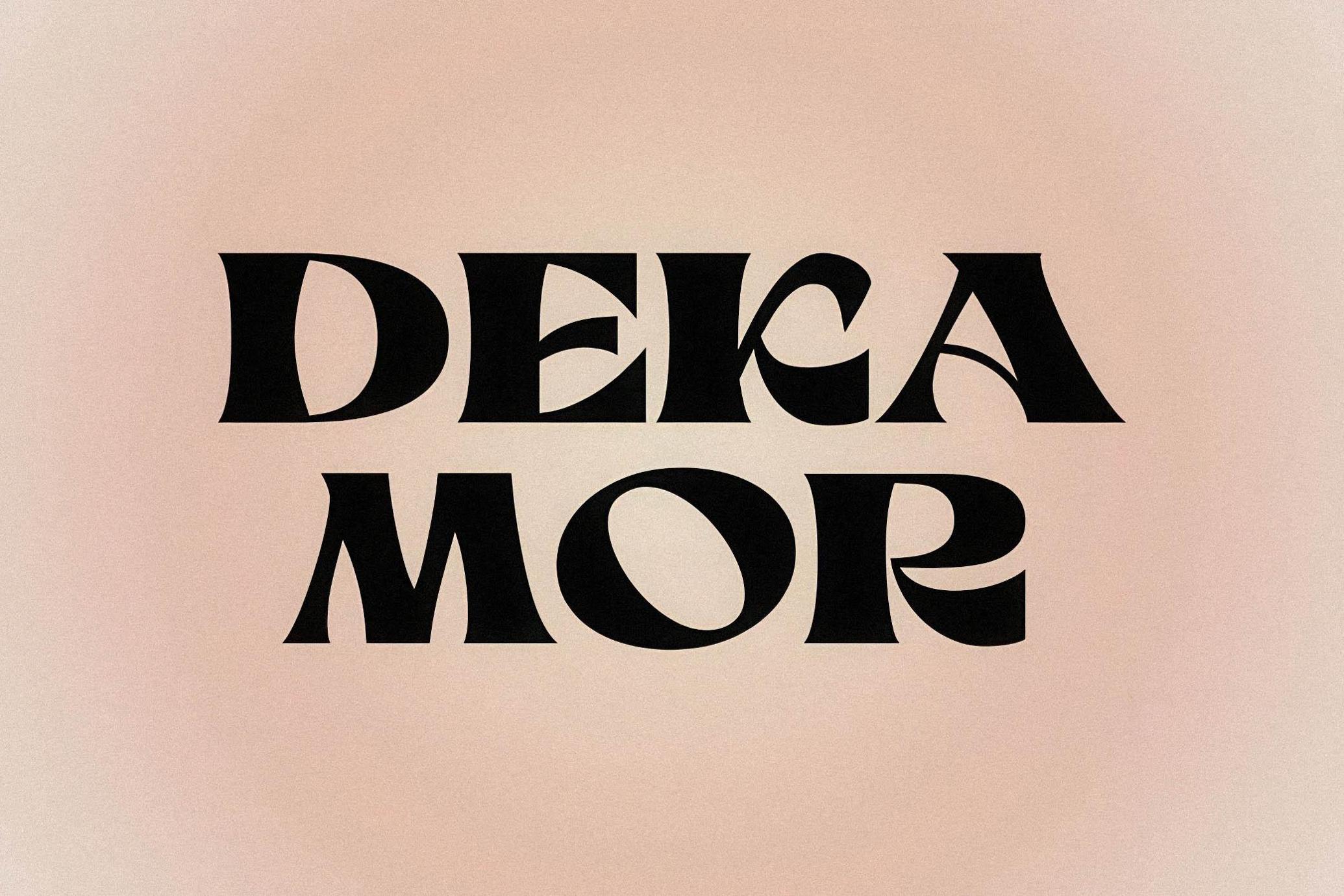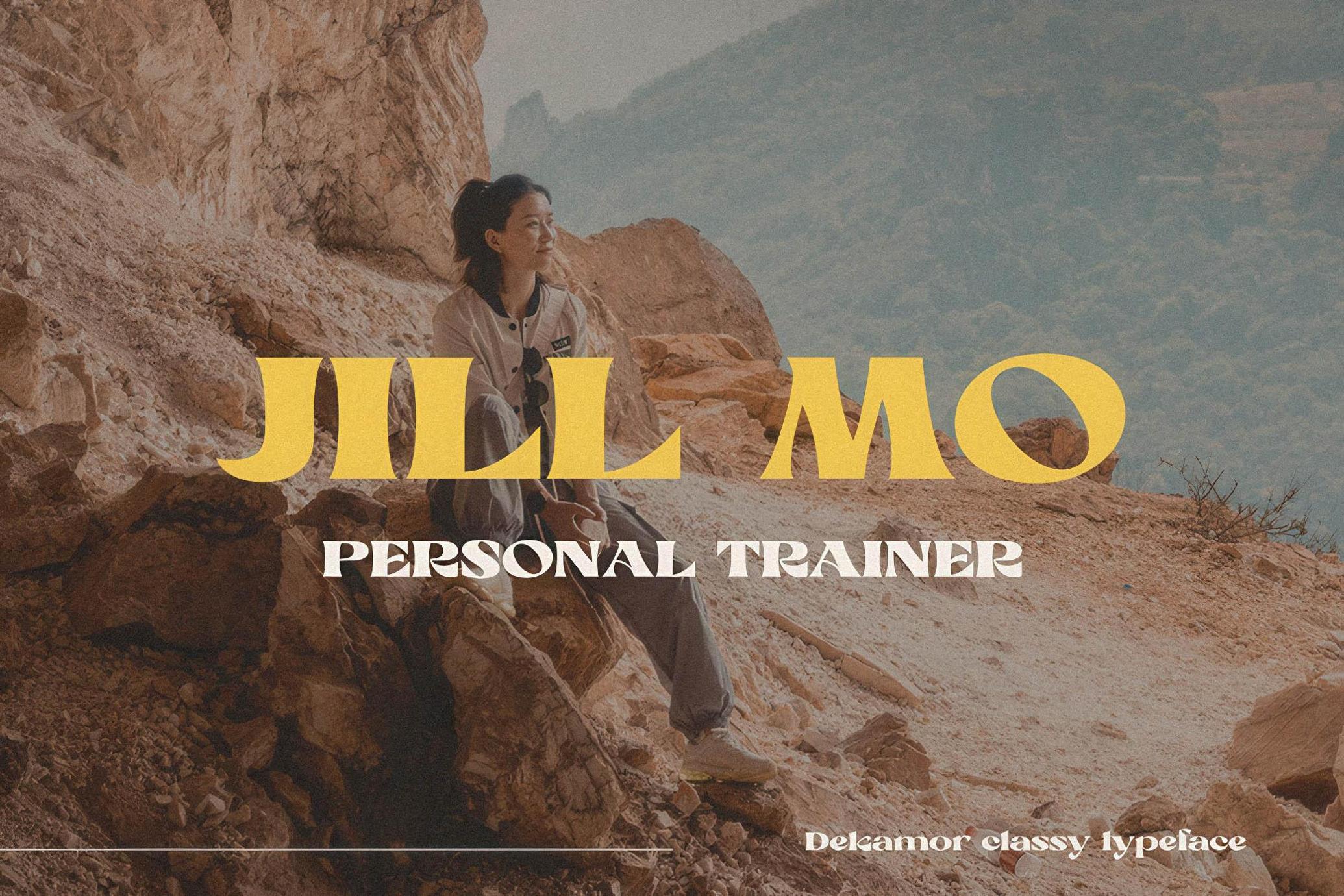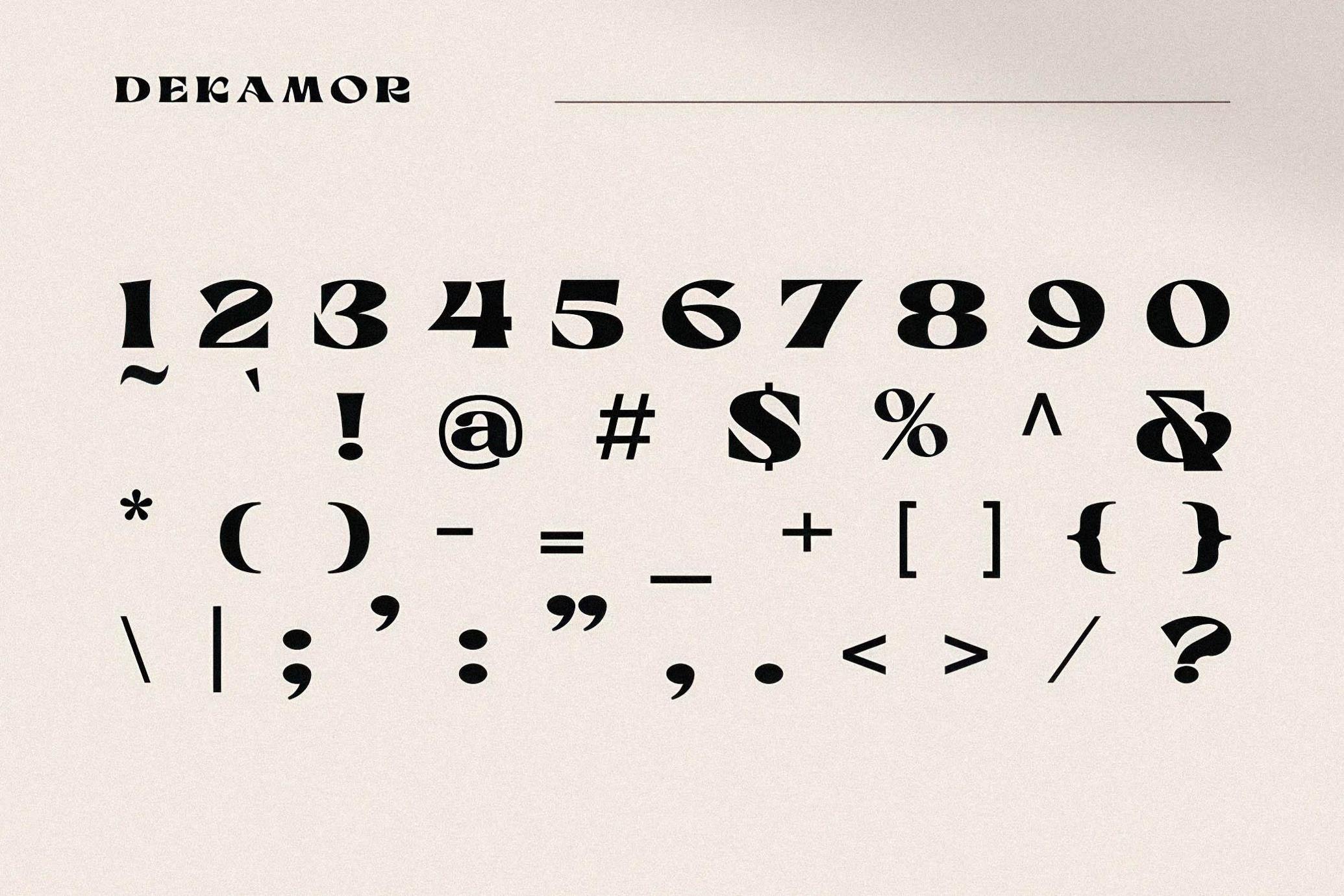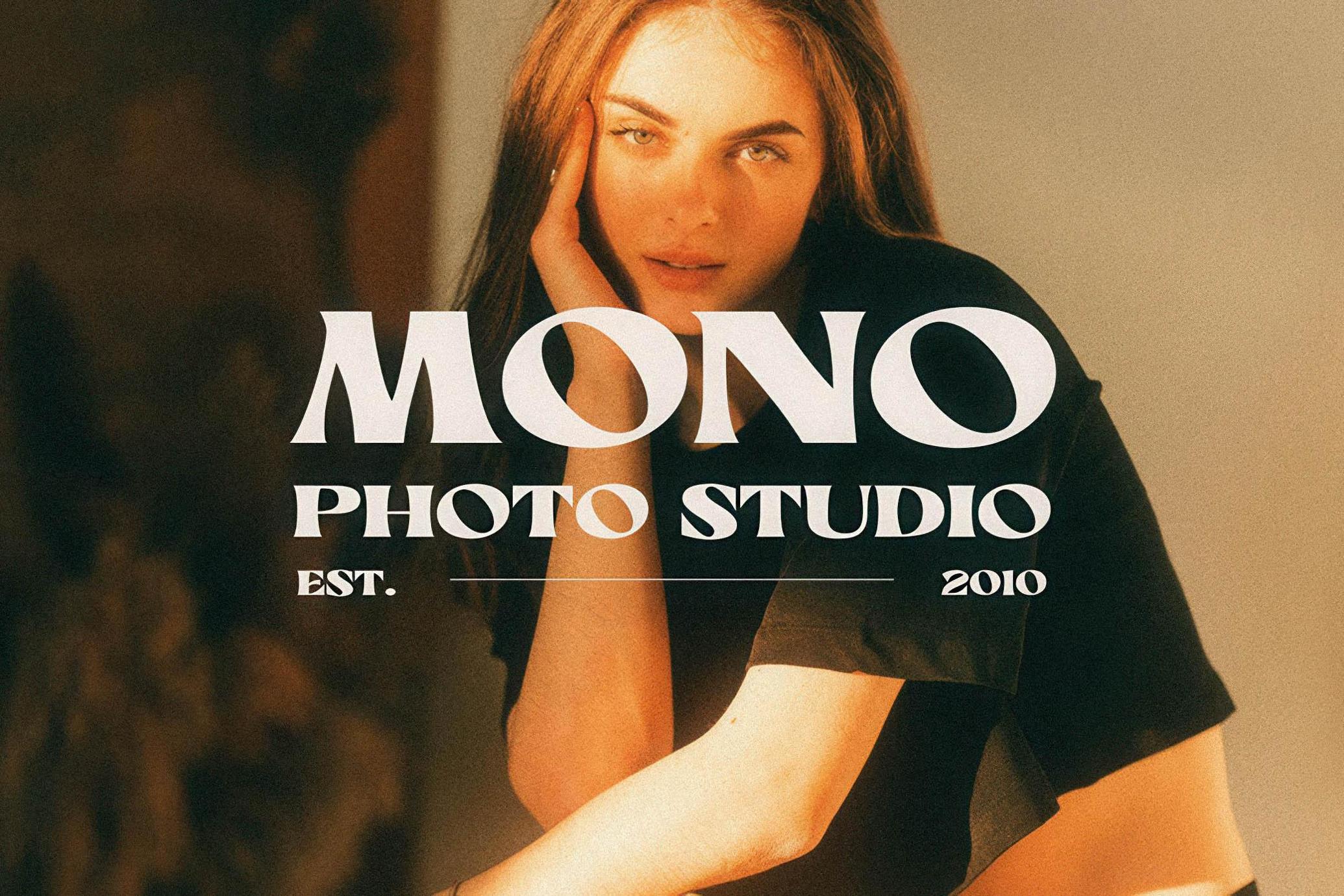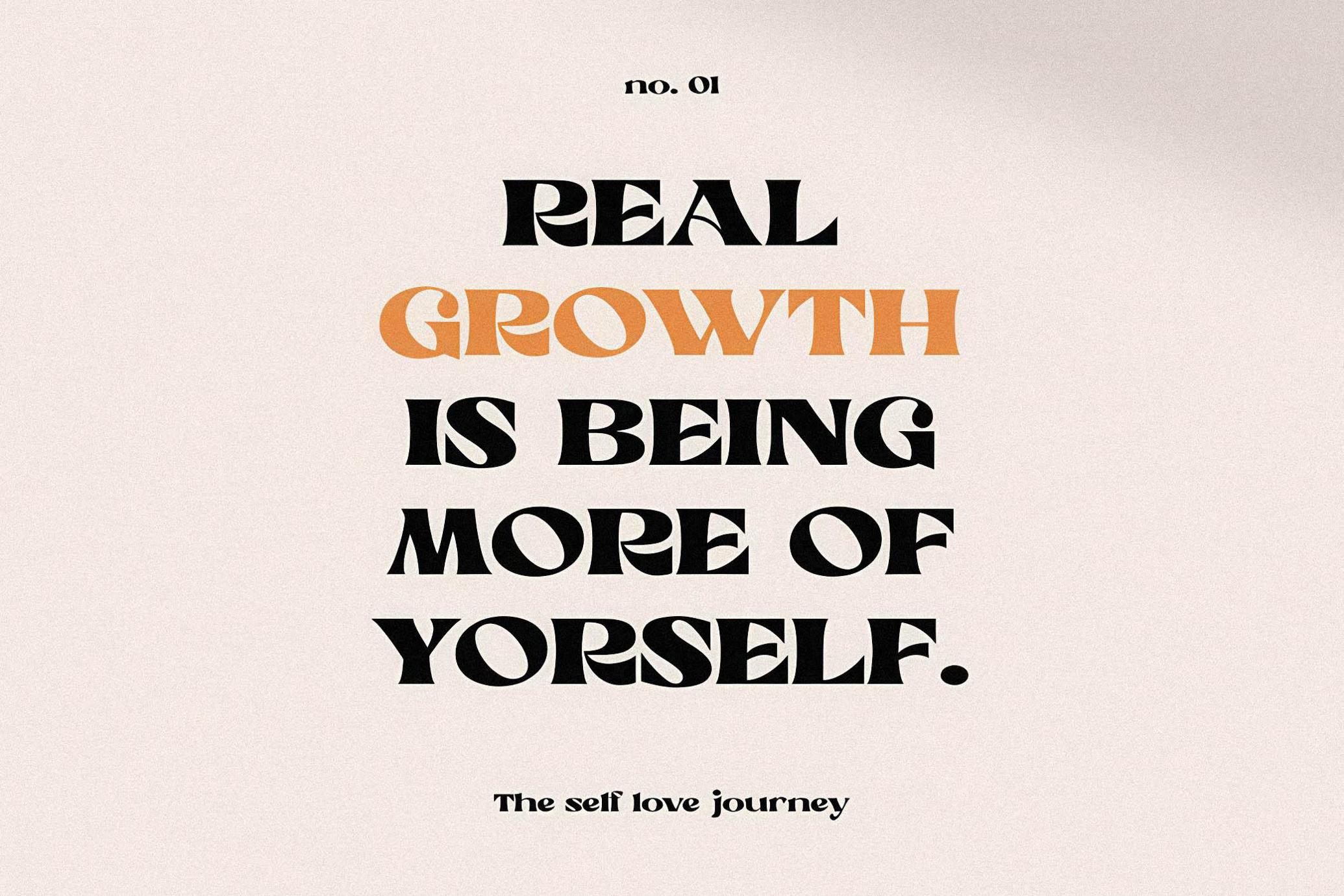
Dekamor - Classy Font
Dekamor
Introducing Dekamor, a classy and modern font that will take your designs to the next level.
With its strong and confident letterforms, this font is perfect for creating eye-catching headlines, logos, and posters. Its clean lines make it versatile enough for a range of design projects, from branding to editorial layouts.
Dekamor is designed to stand out and make a statement, while still remaining legible and easy to read. Whether you're a designer, marketer, or entrepreneur, Dekamor is the perfect font to give your project a professional and polished look.